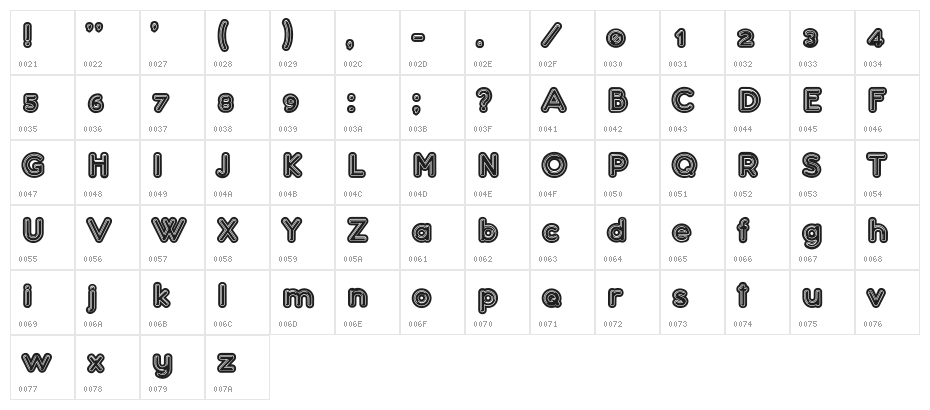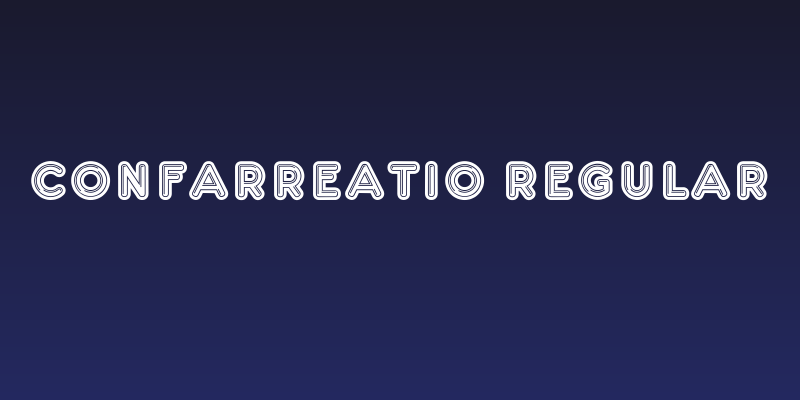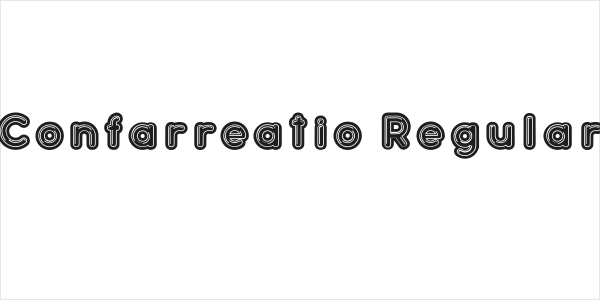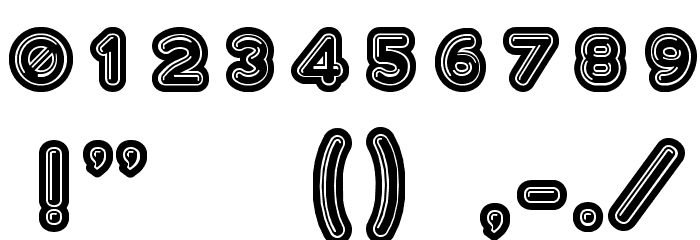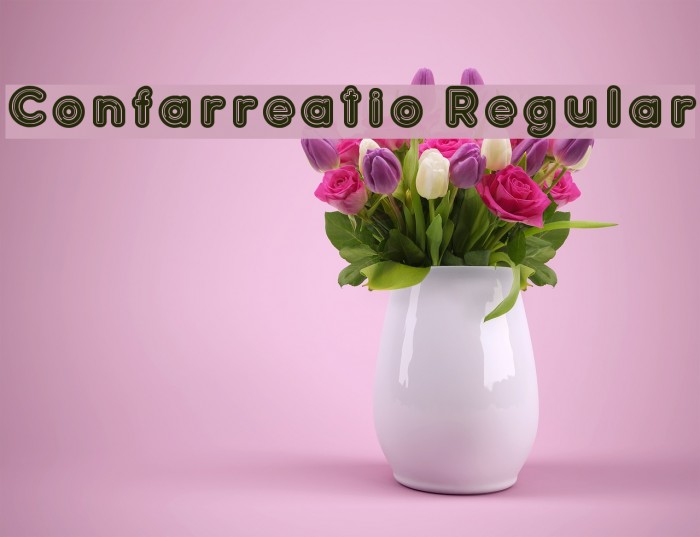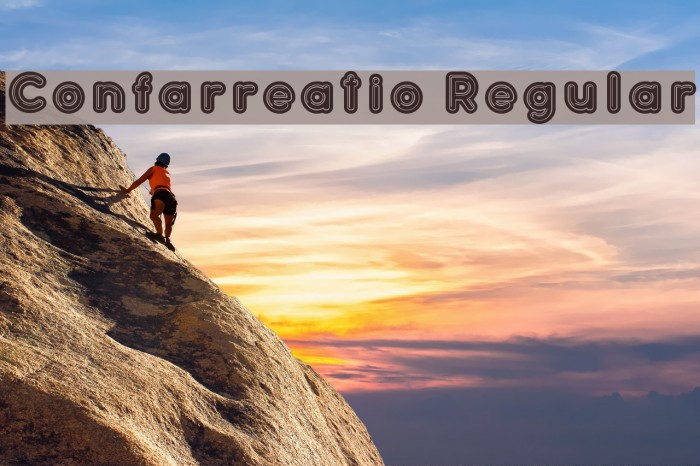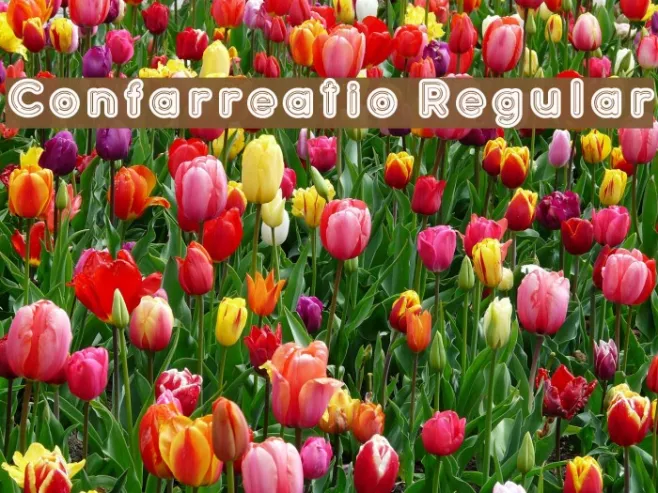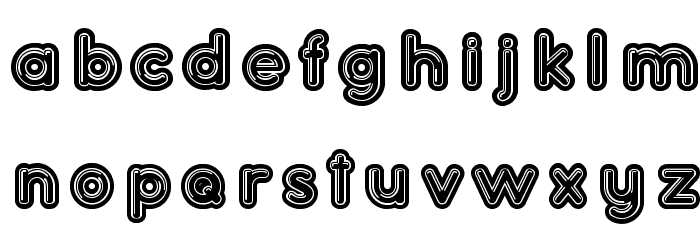
Confarreatio Regular Font
Confarreatio Regular Description
This font features a bold, outlined style with a modern and playful appearance. Each character is designed with a double-layered outline, creating a striking visual effect that stands out. The letters are evenly spaced, maintaining a consistent and harmonious look across both uppercase and lowercase alphabets. The numbers and special characters follow the same design principles, ensuring uniformity throughout. The font's unique style makes it suitable for creative and eye-catching designs, offering a fresh take on traditional typography.
| Proposed Projects | Ideal for posters, headlines, branding, and any project requiring a bold and distinctive typeface. |